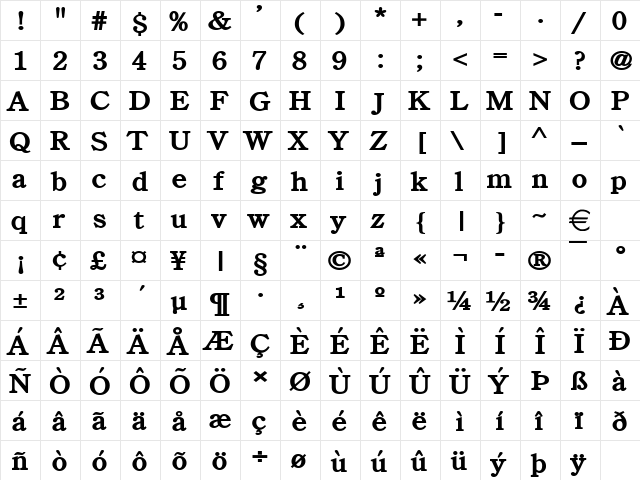
CentimeWide Bold
Design Context for CentimeWide Typeface
CentimeWide offers clean, dependable letterforms without strong stylistic allegiance, making it a practical choice for designers who need flexibility. The heavy weight commands attention and anchors typographic hierarchies.
Pro Tip: Use CentimeWide in both headline and body roles to test its range before committing to a single application.